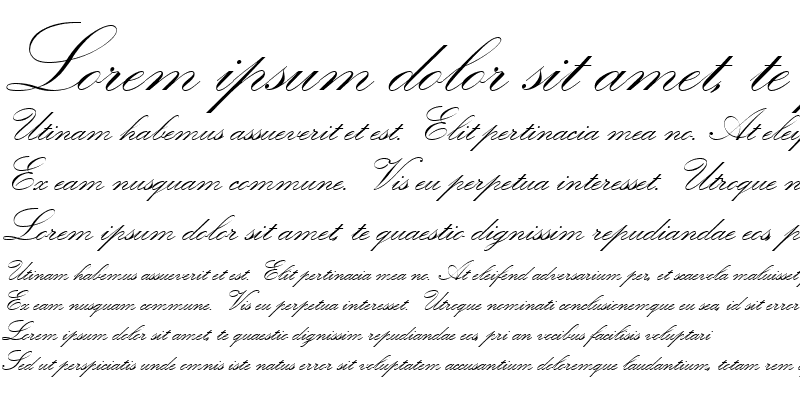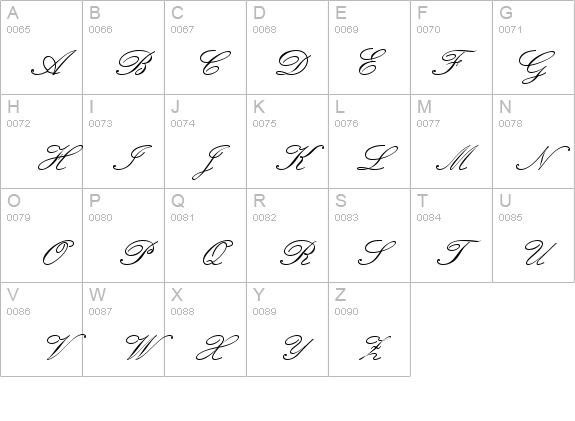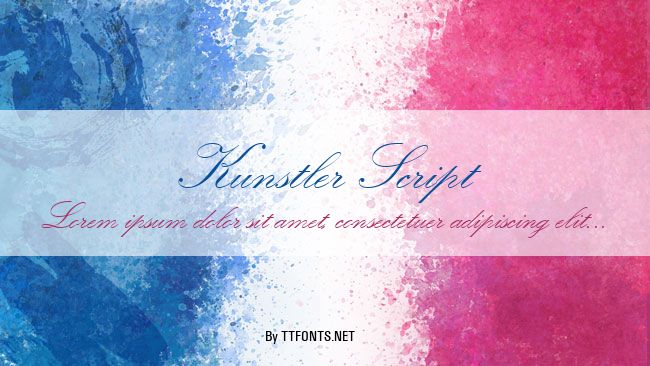
Kunstler Script Schriftart
Kunstler script schriftart. Home › Script › Calligraphy › Zapfino Font Free Download Nov 17, 15 By Free Fonts Zapfino is a calligraphic typeface designed for Linotype by typeface designer Hermann Zapf in 1998 It is based on an alphabet Zapf originally penned in 1944 As a font, it makes extensive use of ligatures and character. FontZonenet offering 1000's of FREE fonts to download to help the millions of designers across the globe expressing their creativity with much more diversity. 1106 Erkunde Rouven Schröers Pinnwand „Kalligrafie schriftarten“ auf Weitere Ideen zu kalligrafie schriftarten, kalligrafie.
The characters flow into each other, making a very saucy script with appetizing color The narrow lowercase allows for efficient use of space, while the long ascenders and descenders help maintain the legibility A unique find among scripts, Aguafina is useful for product packaging, glossy magazine work, and book covers. Schriftart kunstler script kostenlos herunterladen Diese Schriftart zählt zur Stilrichtung regular Laden Sie kostenlose Schriftarten für Mac, Windows und Linux herunter Alle Schriftarten sind im Format TrueType Fontsupcom ist eine großartige Sammlung kostenloser Schriftarten. This font is part of Microsoft Office 16 software package so it cannot be downloaded separately If you have installed Microsoft Office 16 it should be available If you don't have it you can try some similar fonts here SIMILAR FREE FONTS for Kunstler Script.
Kuenstler Script Two Bold ;. K?nstler Script is an elegant handwriting script font in the formal "copperplate" engraving style Licensing and redistribution info Font redistribution FAQ for Windows License Microsoft fonts for enterprises, web developers, for hardware & software redistribution or server installations. The history of Kuenstler Script was designed by the German Stempel foundry in 1902 Hans Bohn, a German graphic artist, and type designer, extended the font family in 1957 with a black weight Nowadays this typeface is part of Linotype’s font collection Trivia.
Similar free fonts and alternative for Kunstler Script OPTIExcelsiorScript, Claudya Script Demo, MiltonOneBold, MiltonTwoBold, Wiegel Latein, OPTIExcelsiorS. Kuenstler Script is a Trademark by Monotype Imaging Germany Gmbh, the address on file for this trademark is DuPontStrasse 1, Bad Homburg VDH. James Howard Kunstler is the author of The Long Emergency, Too Much Magic, The Geography of Nowhere, the World Made By Hand novels, and more than a dozen other books He lives in Washington County, New York Learn More Report a Bug Please report issues and site suggestions by clicking here.